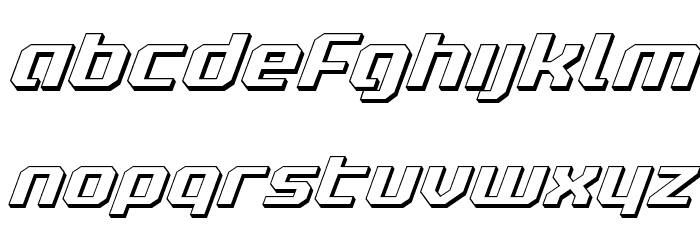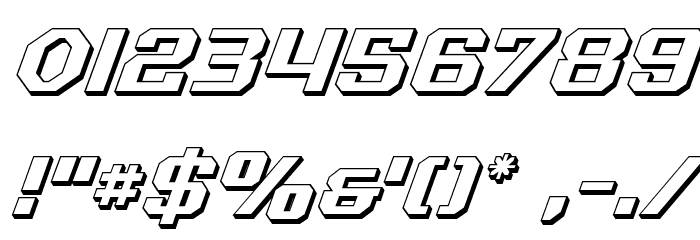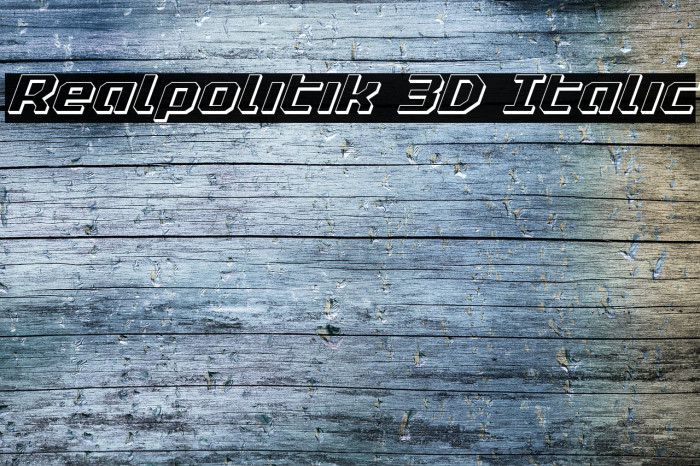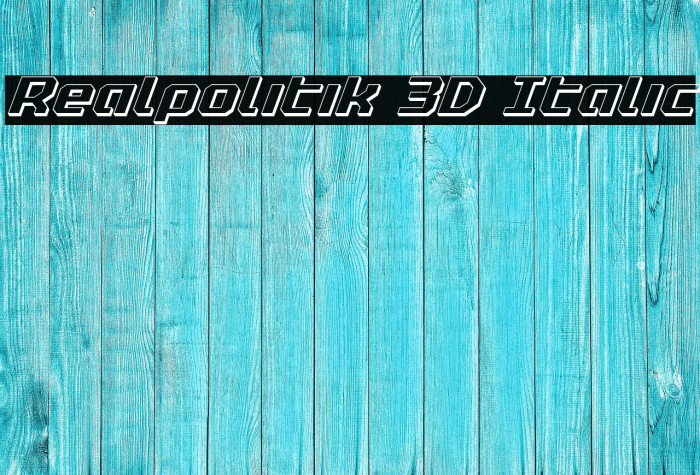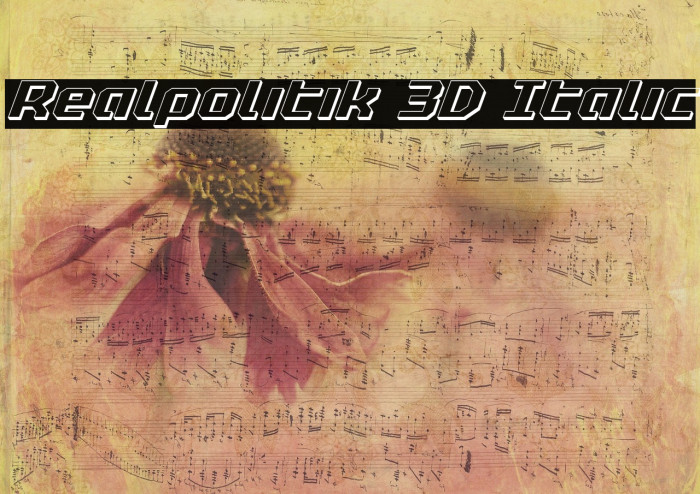
Realpolitik 3D Italic Font
This font features a bold, three-dimensional appearance with a distinct italic slant, giving it a dynamic and modern look. The characters are outlined, creating a sense of depth and movement. The uppercase and lowercase letters maintain a consistent style, with sharp angles and clean lines that enhance readability. The numerals and special characters follow the same design principles, ensuring uniformity across all glyphs. This font's unique 3D effect makes it stand out, making it suitable for projects that require a strong visual impact.
A bold, 3D italic font with sharp angles and a modern look.
- Proposed Projects: Ideal for headlines, posters, logos, and any design needing a strong, dynamic presence.